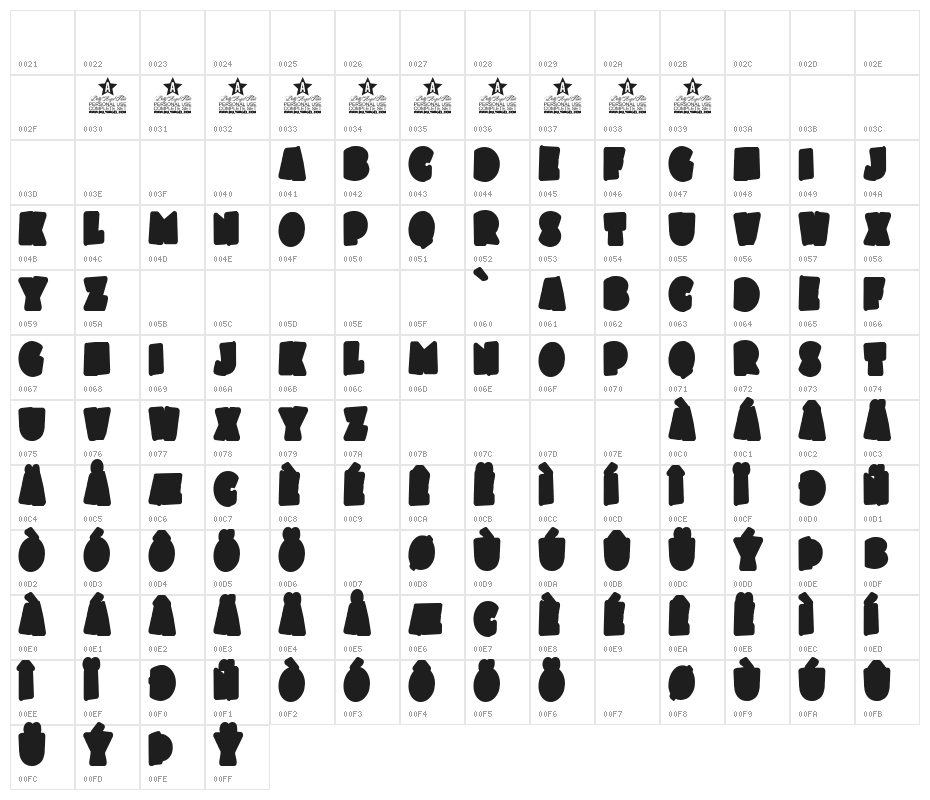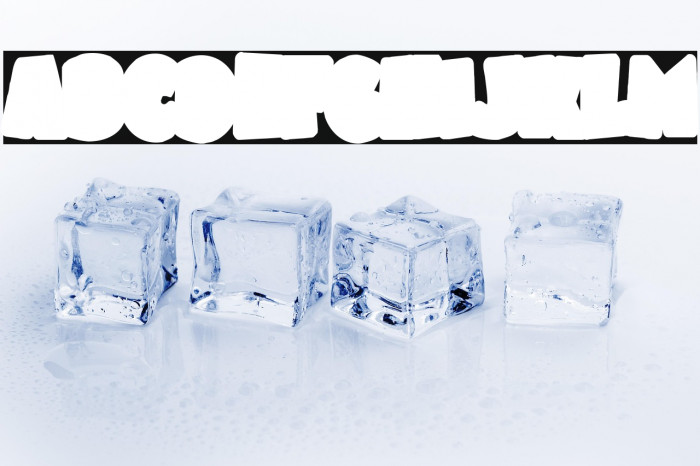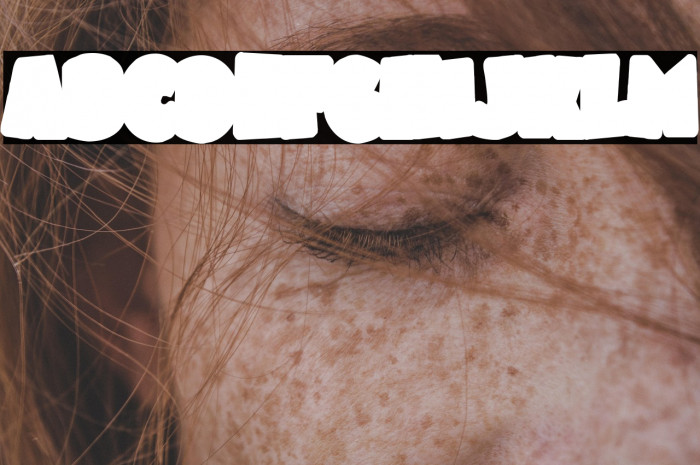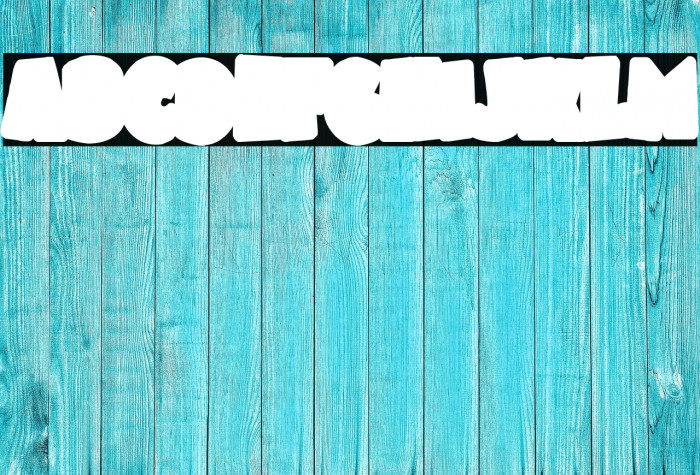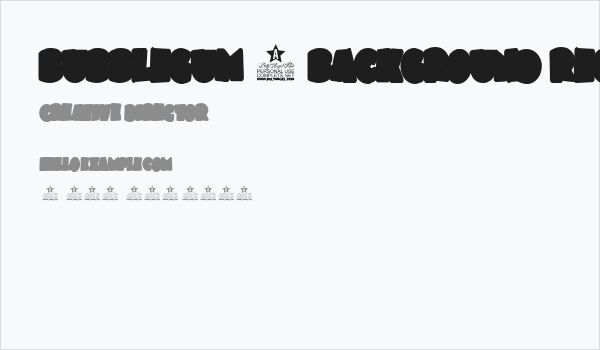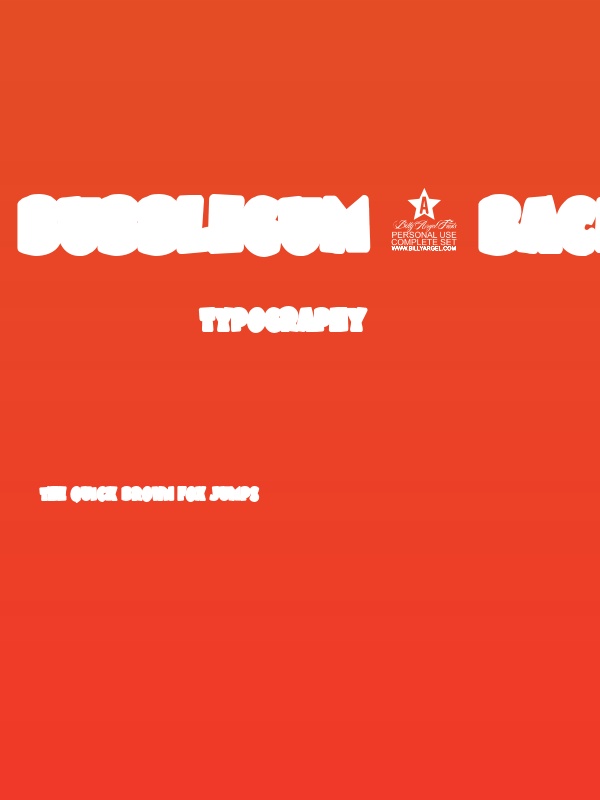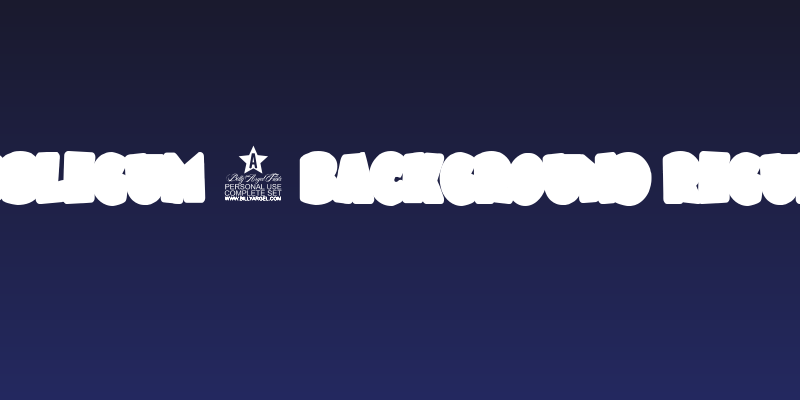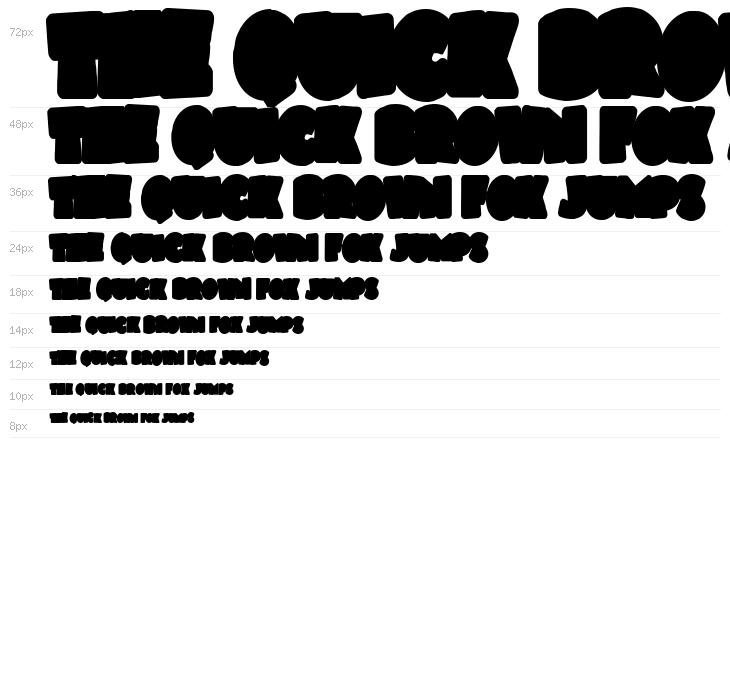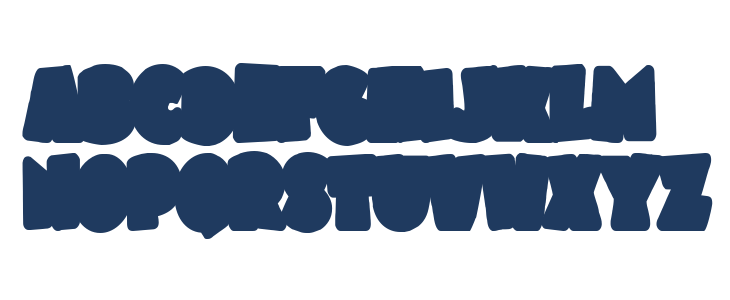
BUBBLEGUM 2 BACKGROUND Regular Font
BUBBLEGUM 2 BACKGROUND Regular Description
This font features a bold, playful style with thick, rounded letters that give it a bubbly appearance. The characters are uniformly wide and have a consistent stroke thickness, contributing to a cohesive and friendly look. The uppercase and lowercase letters maintain a similar weight and style, enhancing readability while adding a touch of whimsy. The font's design is reminiscent of retro or comic styles, making it ideal for projects that require a fun and informal tone. Its boldness ensures that it stands out, making it suitable for eye-catching headlines or titles.
| Overall Style | Playful, Retro |
| Proposed Projects | Ideal for children's books, comic strips, playful branding, party invitations, and eye-catching headlines. |